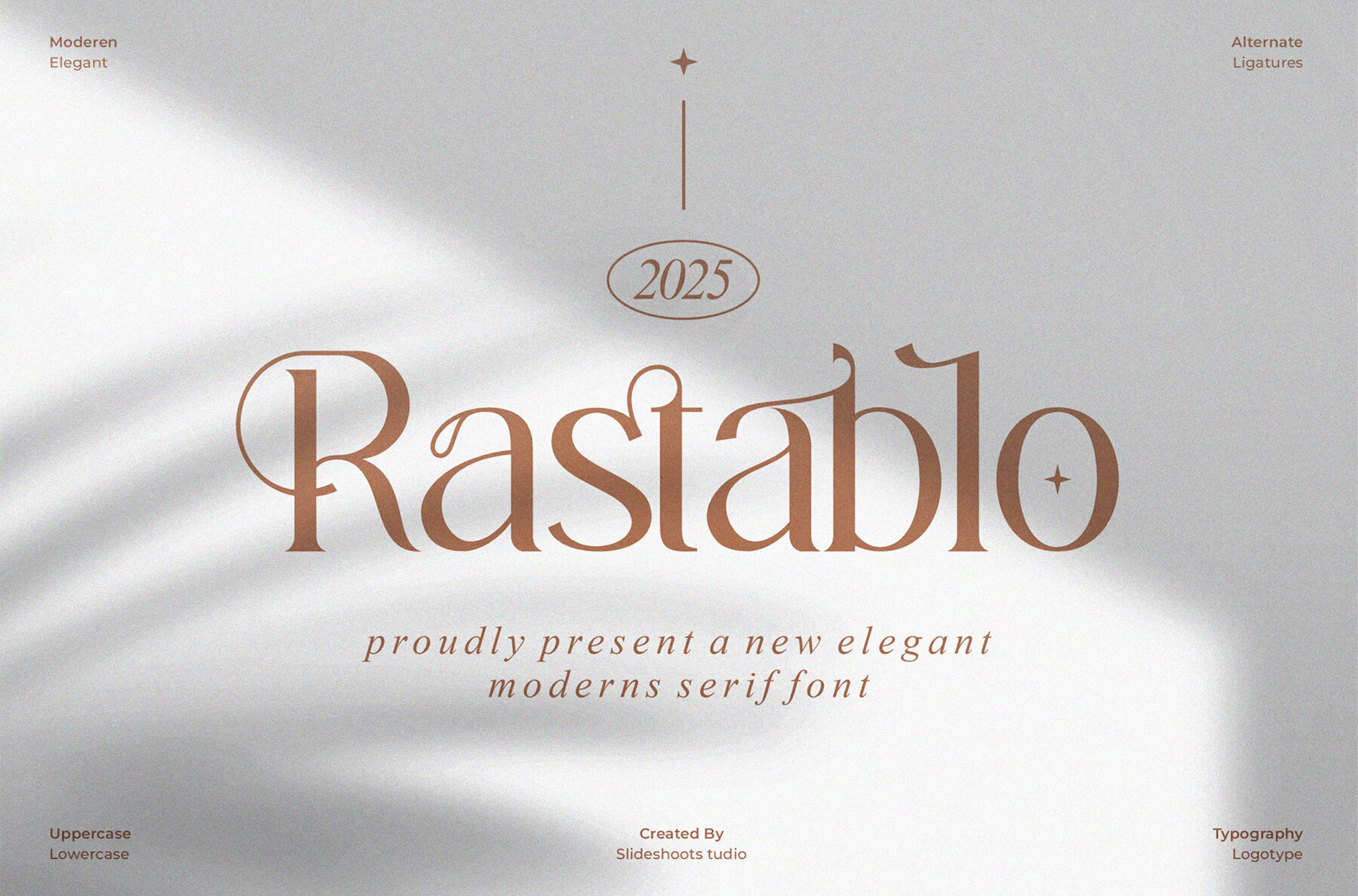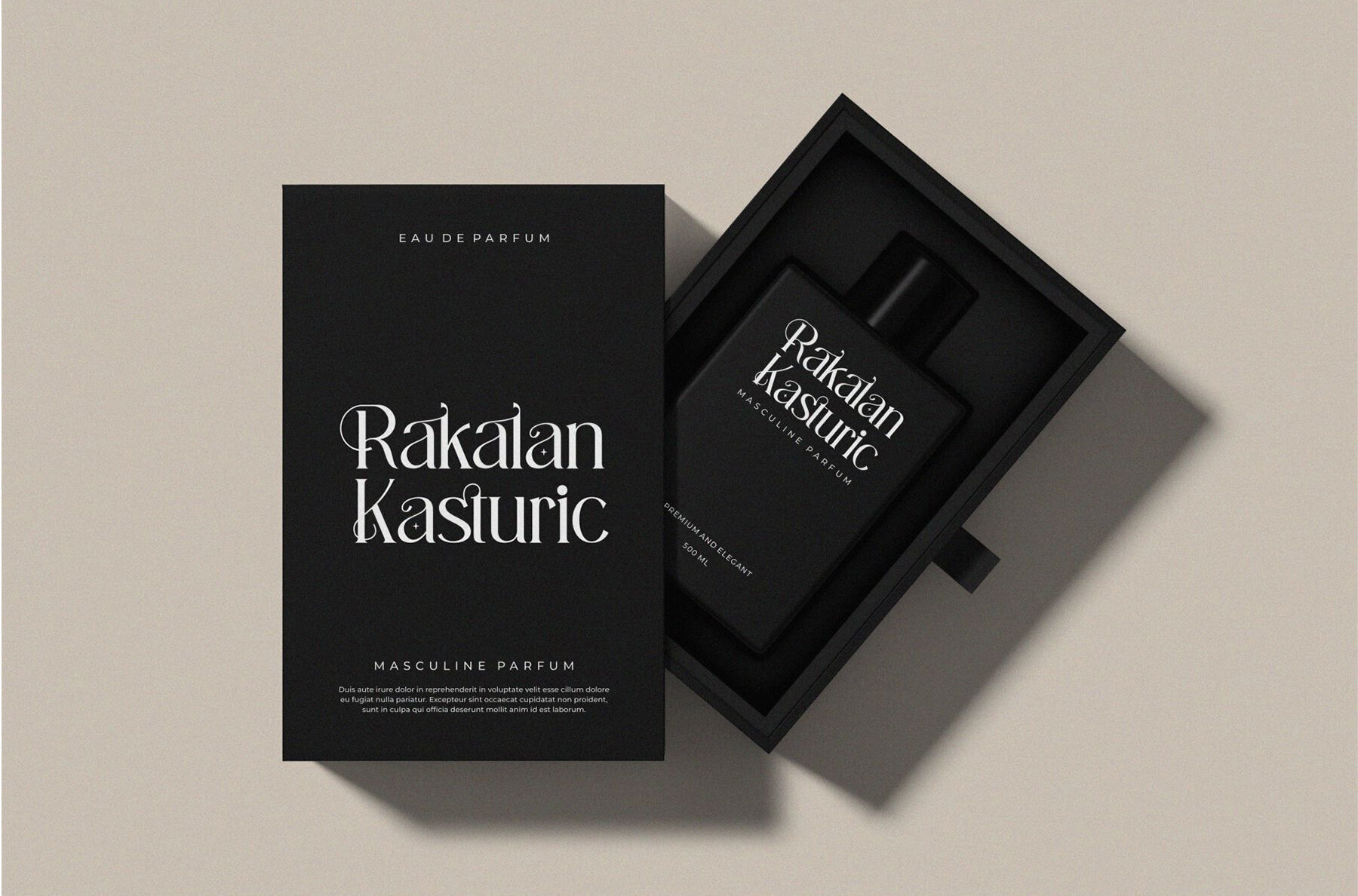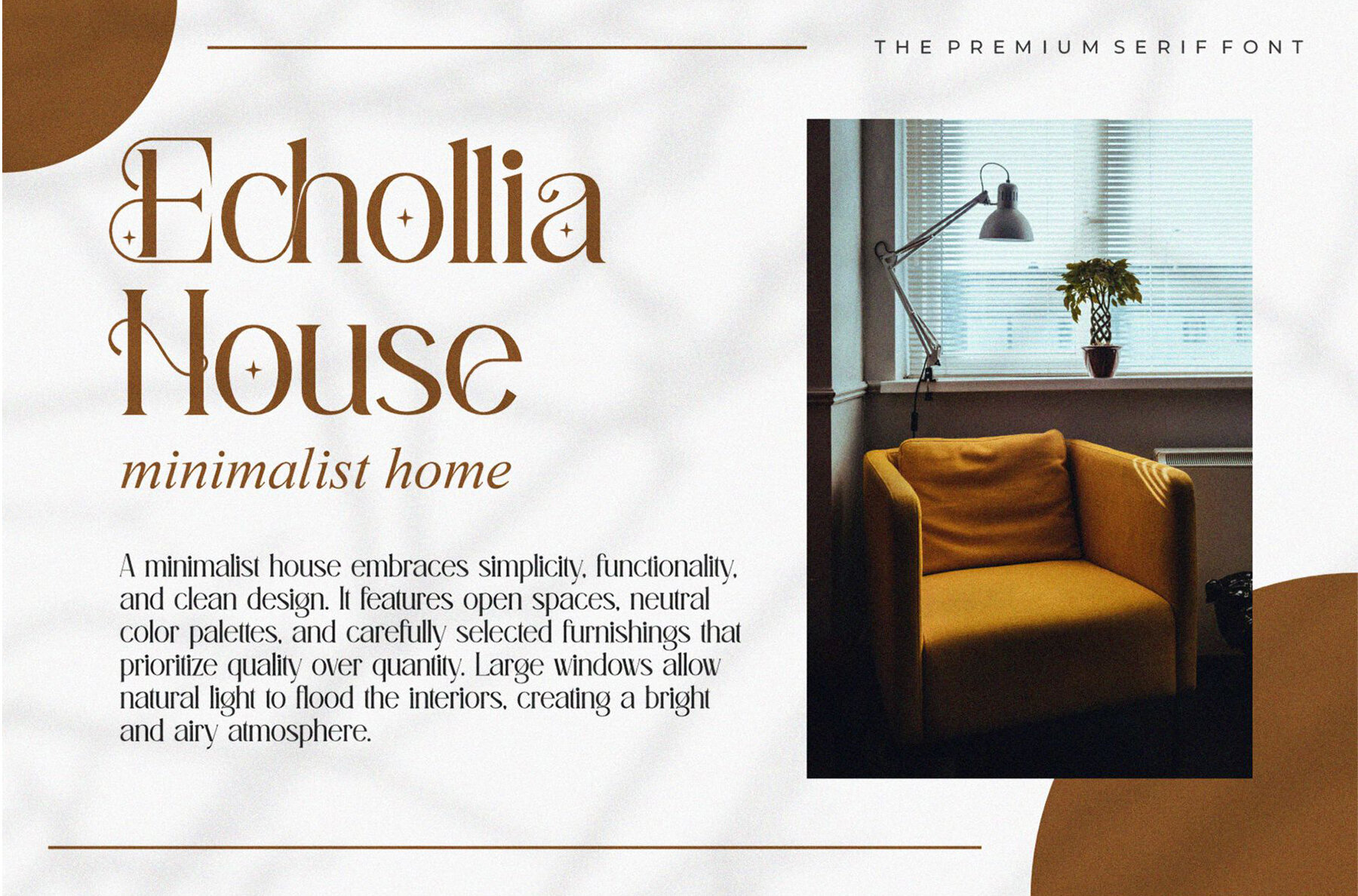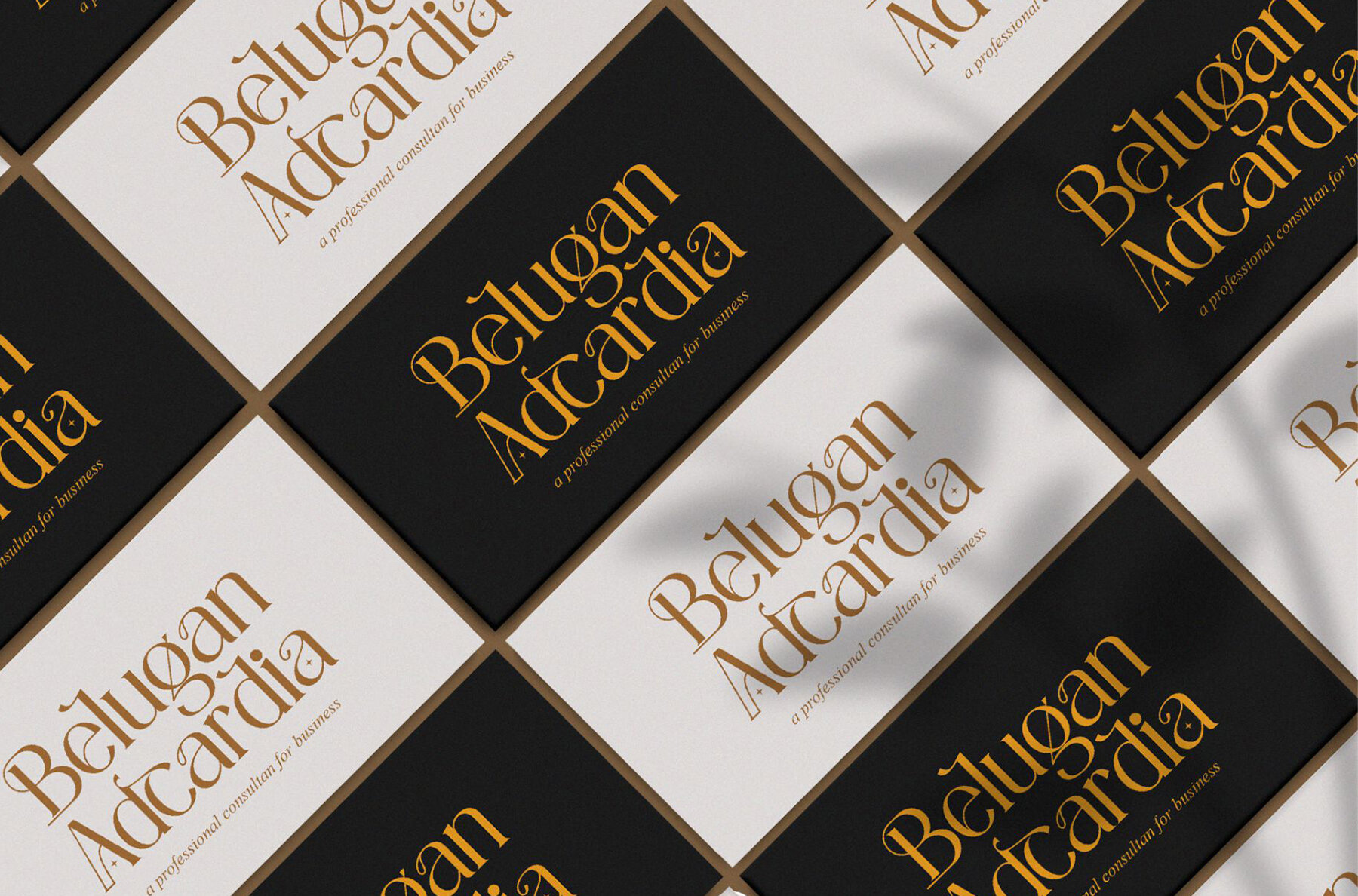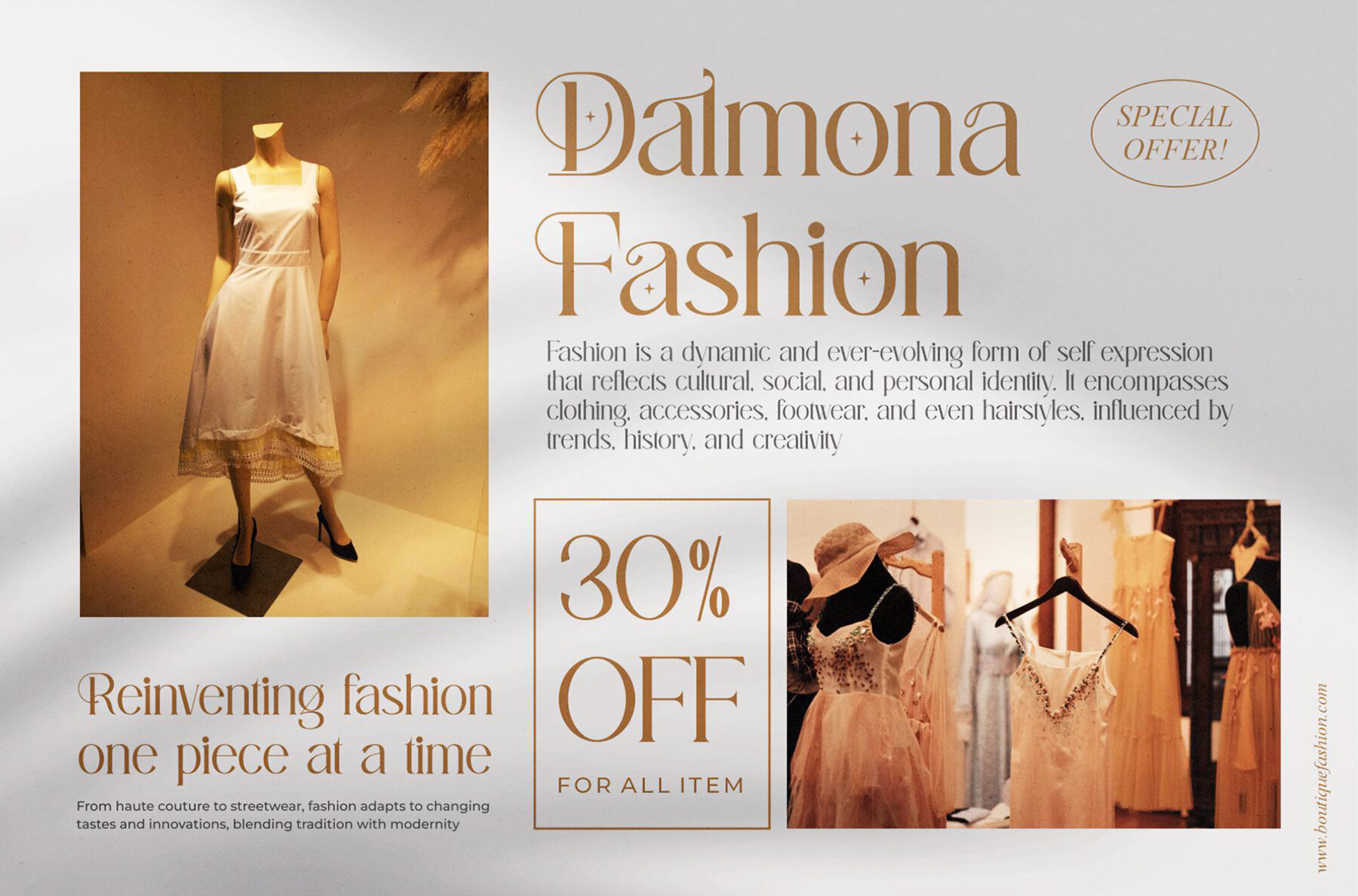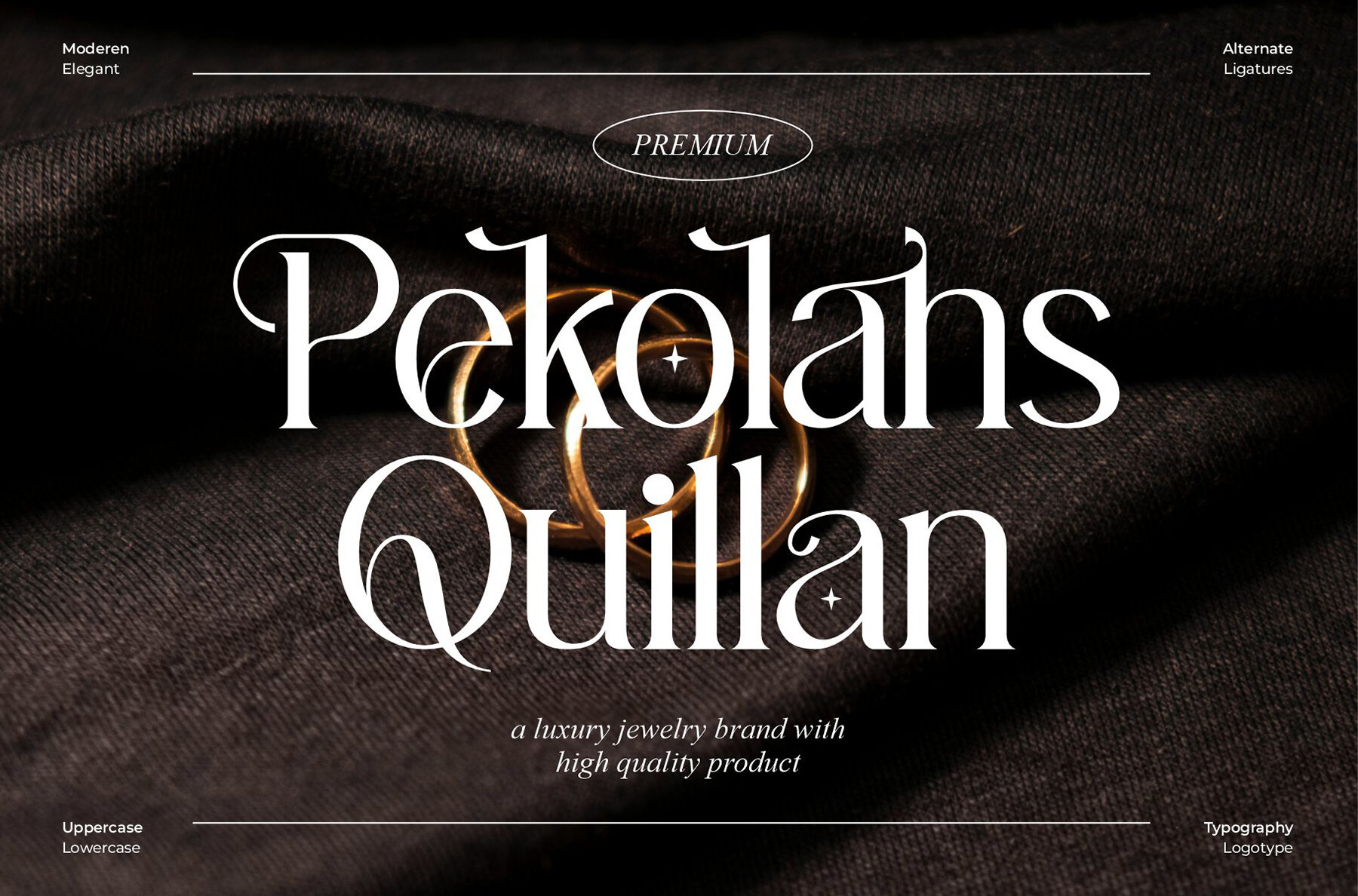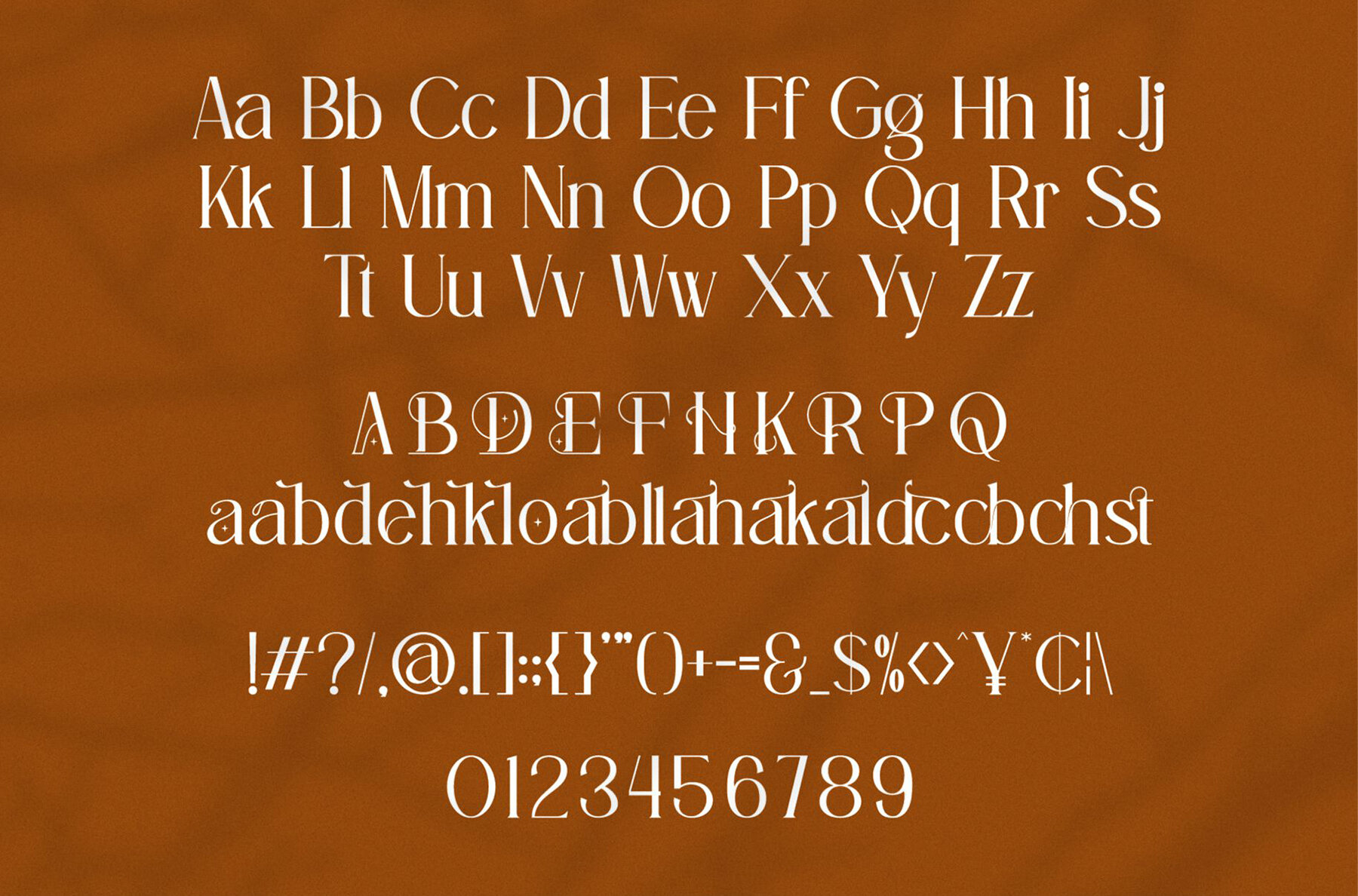
Rastablo Font
Rastablo
Rastablo is a captivating modern serif font that combines trendy bounciness with a distinctive wood theme. It's the perfect choice for adding a unique touch to your creative projects. Whether you're designing invitation cards, crafting company logos, titling movies, or creating brand names, Rastablo's playful yet elegant style offers versatility and charm.Rastablo - A Chic Modern Serif Font